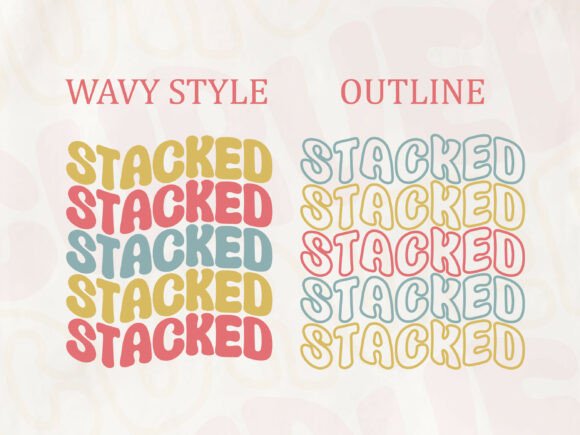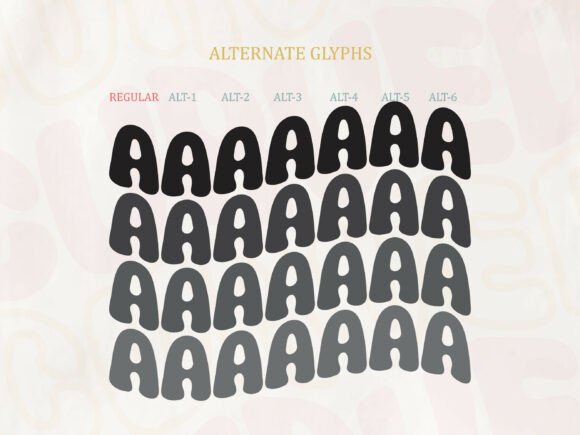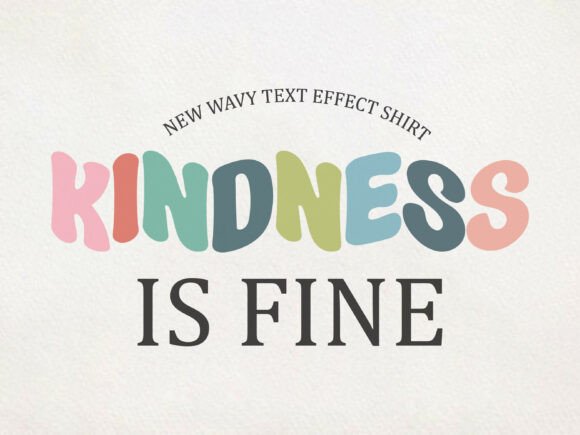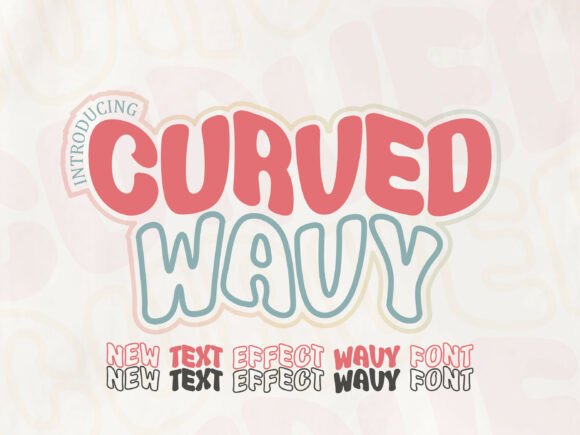
Curved Wavy Font: The Groovy Choice for Retro-Inspired Designs
Are you looking for a font style that adds a touch of nostalgia to your designs? Look no further than the Curved Wavy Font. This playful yet stylish font is perfect for retro-inspired projects, and its unique wavy effect is sure to make your designs stand out.
What is Curved Wavy Font?
Curved Wavy Font is a groovy font style that features a wavy effect, giving it a fun and playful look. The font’s curved lines and wavy curves create a sense of movement and energy, making it perfect for designs that need a touch of whimsy. Whether you’re working on a retro-inspired project or just want to add some personality to your designs, Curved Wavy Font is a great choice.
Characteristics of Curved Wavy Font
So, what makes Curved Wavy Font so special? Here are a few of its key characteristics:
- Playful yet stylish: Curved Wavy Font is the perfect combination of fun and sophistication. Its playful wavy effect adds a touch of whimsy to your designs, while its stylish lines keep it looking sleek and modern.
- Retro-inspired: The wavy effect of Curved Wavy Font gives it a distinctly retro feel, making it perfect for designs that need a nostalgic touch.
- Versatile: Curved Wavy Font is perfect for a wide range of design projects, from posters and flyers to logos and branding materials.
Uses for Curved Wavy Font
So, what can you use Curved Wavy Font for? The possibilities are endless! Here are a few ideas to get you started:
- Retro-inspired posters and flyers: Add a touch of nostalgia to your posters and flyers with Curved Wavy Font.
- Logos and branding materials: Use Curved Wavy Font to create a unique and memorable logo for your business or brand.
- Social media graphics: Add some personality to your social media graphics with Curved Wavy Font.
- Wedding and event invitations: Use Curved Wavy Font to create beautiful and unique wedding and event invitations.
Why Choose Curved Wavy Font?
So, why should you choose Curved Wavy Font for your next design project? Here are a few reasons:
- Unique and eye-catching: The wavy effect of Curved Wavy Font makes it truly unique and eye-catching.
- Easy to read: Despite its playful effect, Curved Wavy Font is easy to read and understand.
- Highly versatile: Curved Wavy Font can be used for a wide range of design projects.
Tips for Using Curved Wavy Font
Here are a few tips for using Curved Wavy Font in your designs:
- Use it sparingly: While Curved Wavy Font is perfect for adding a touch of whimsy to your designs, it can be overwhelming if used too much. Use it sparingly to create a balanced look.
- Pair it with a simple font: Pair Curved Wavy Font with a simple font to create a balanced look.
- Experiment with colors: Curved Wavy Font looks great in a variety of colors, so don’t be afraid to experiment and find the perfect color for your design.
| Font Name | Curved Wavy Font |
| Author | MaxArt |
Curved Wavy Font is a groovy font style that’s perfect for retro-inspired designs. Its playful yet stylish look makes it a great choice for designs that need a touch of nostalgia. With its unique wavy effect, Curved Wavy Font is sure to make your designs stand out. So why not give it a try and see how it can add some fun and personality to your designs?
Whether you’re a designer, crafter, or just someone who loves to create, Curved Wavy Font is a great addition to your font collection. Its versatility and unique style make it perfect for a wide range of design projects. So go ahead, get creative, and have fun with Curved Wavy Font!